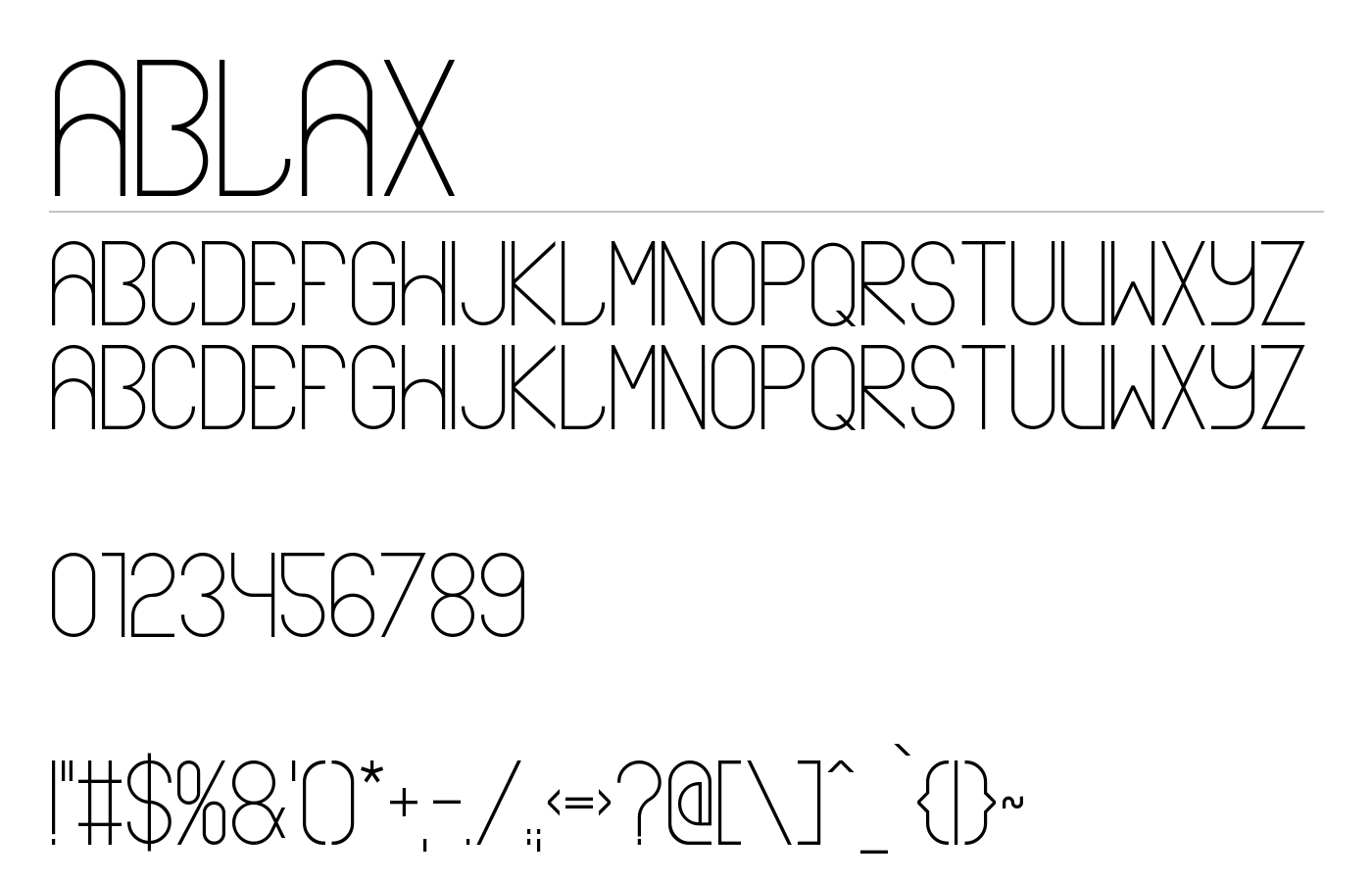
ABLAX is a thin, modern sans serif font characterized by tall, narrow letterforms and smooth, rounded edges that give it a sleek and elegant appearance. Its minimalist style with minimal stroke contrast and geometric shapes makes it perfect for contemporary branding, headlines, and creative projects seeking a clean yet distinctive look. This font works especially well in fashion, editorial, and tech contexts where a refined but modern impression is desired.
ABLAX Font